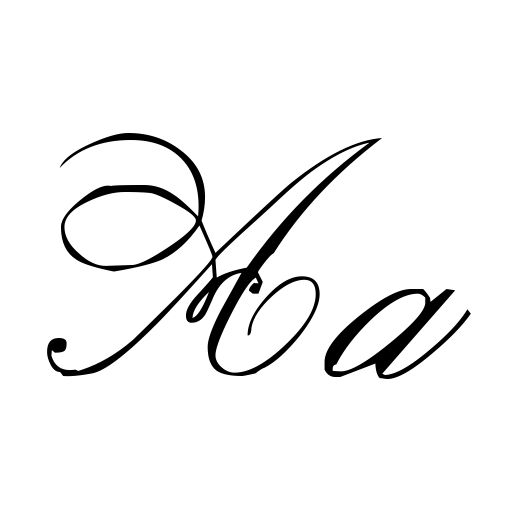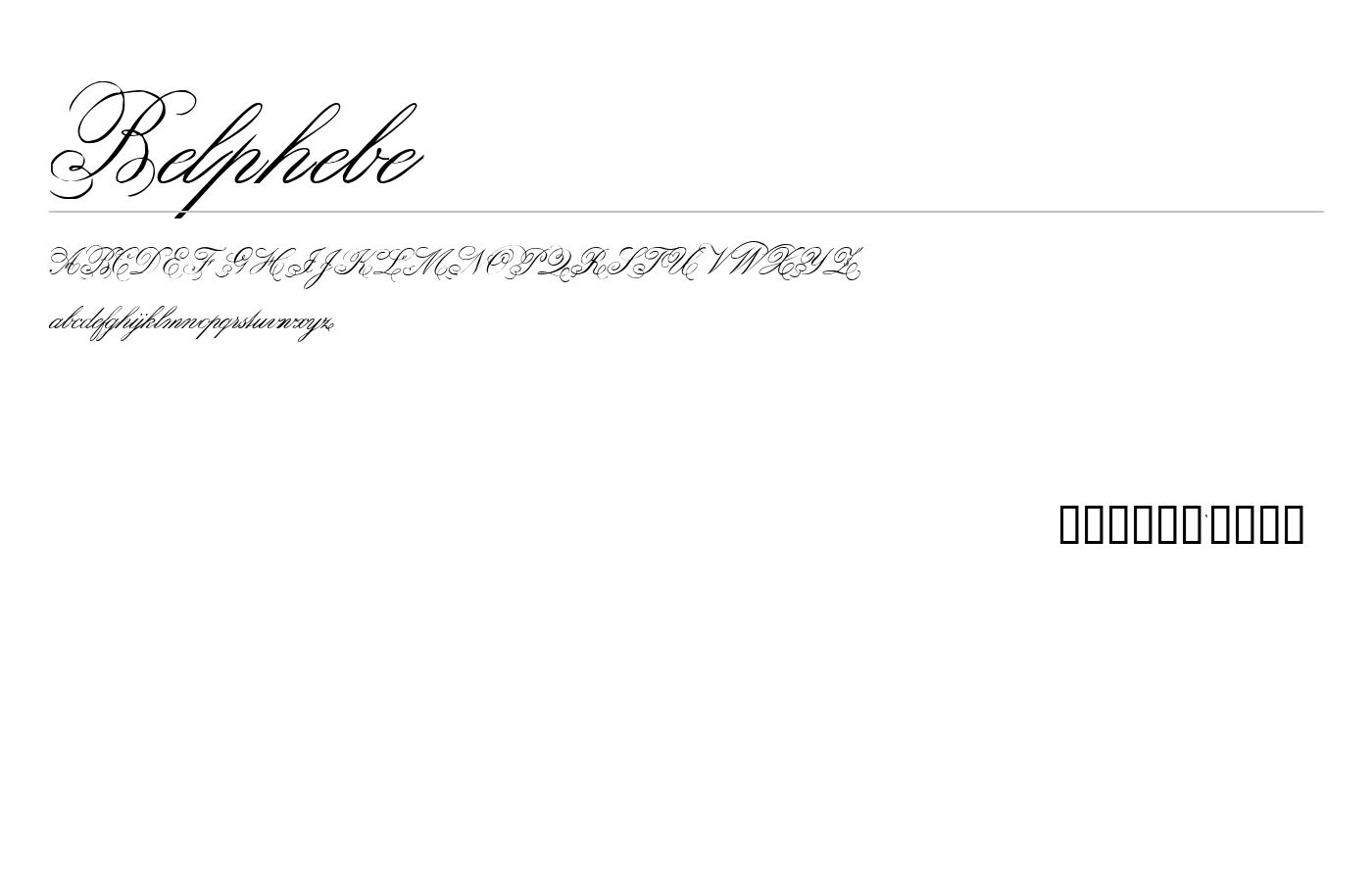
Belphebe is an elegant script font characterized by its delicate, flowing strokes and graceful swashes. Its thin, high-contrast lines and elaborate uppercase letters give it a refined, classic feel, making it ideal for sophisticated branding, wedding invitations, and decorative headlines where a touch of timeless beauty is desired. This font shines in projects that call for a romantic, vintage-inspired style with a highly formal and artistic flair.
Belphebe Font
About Belphebe Font